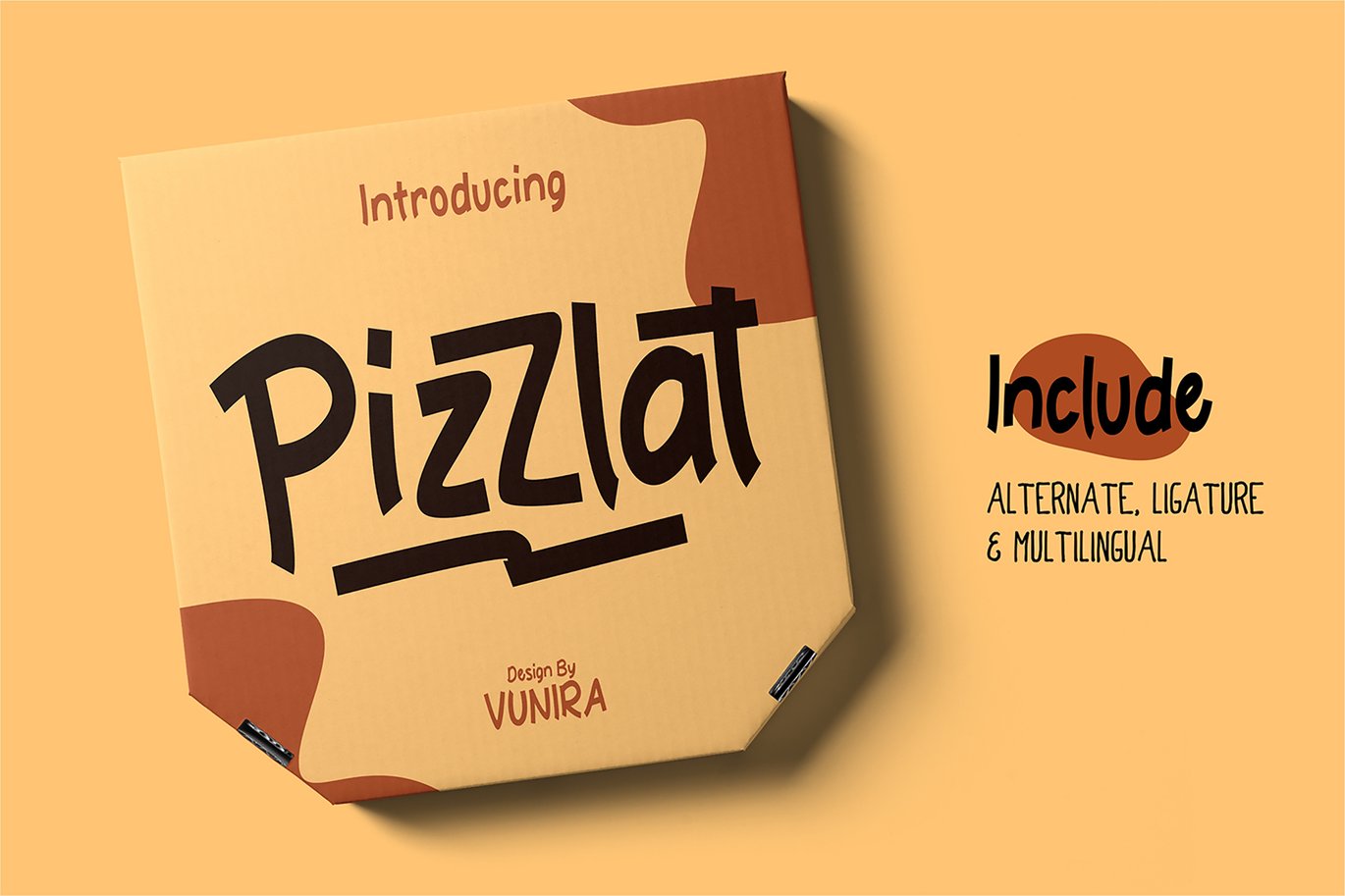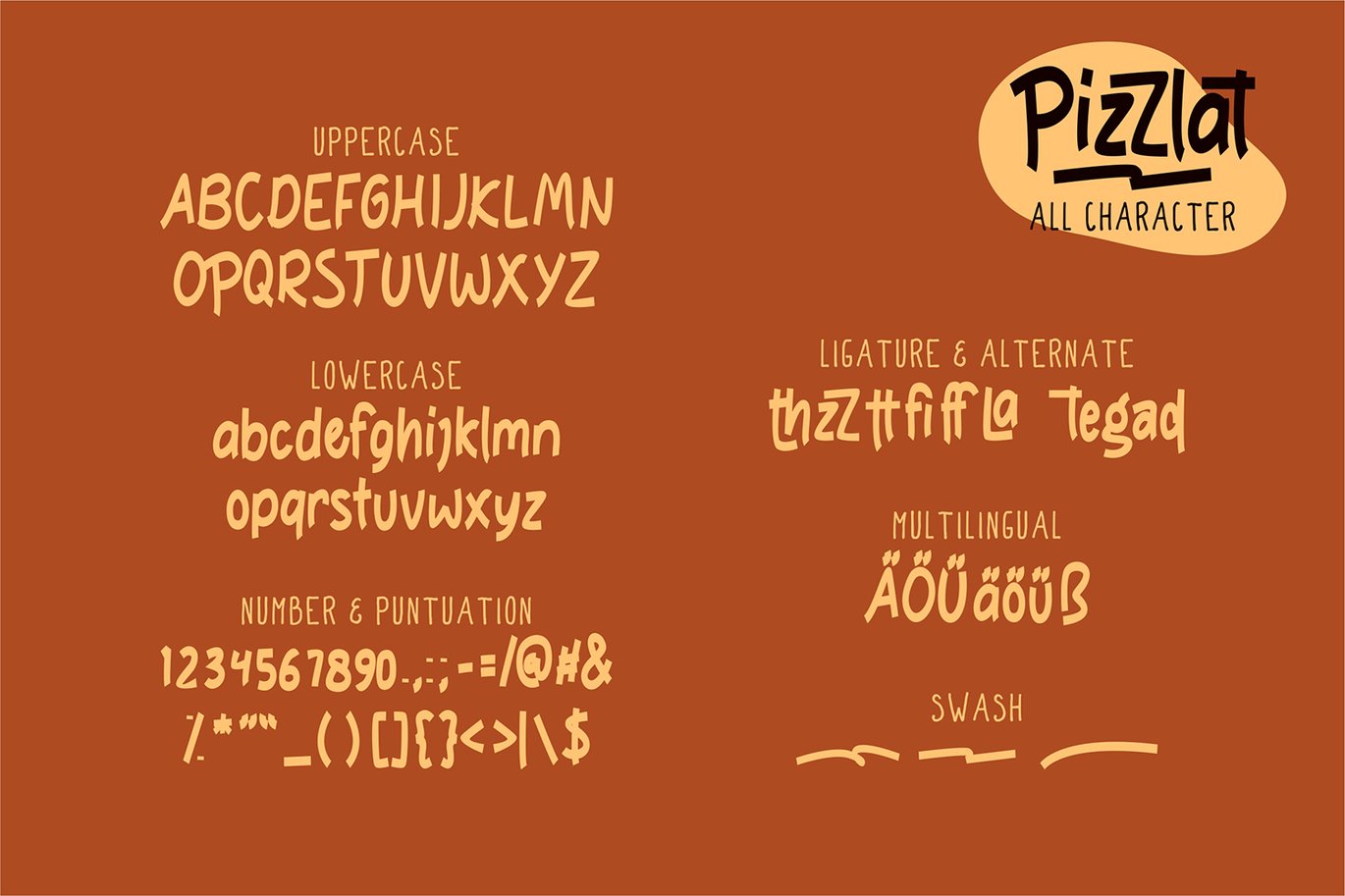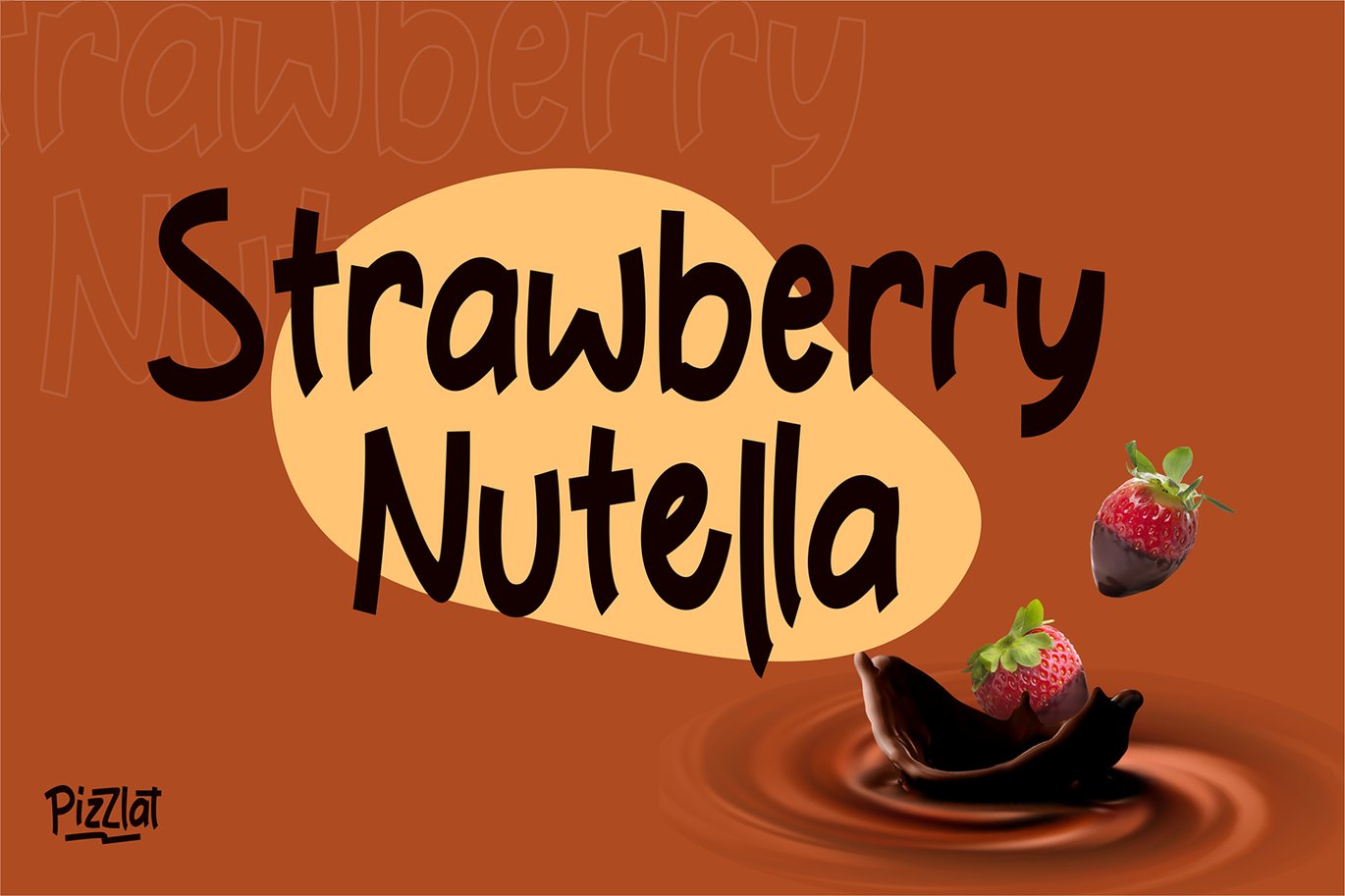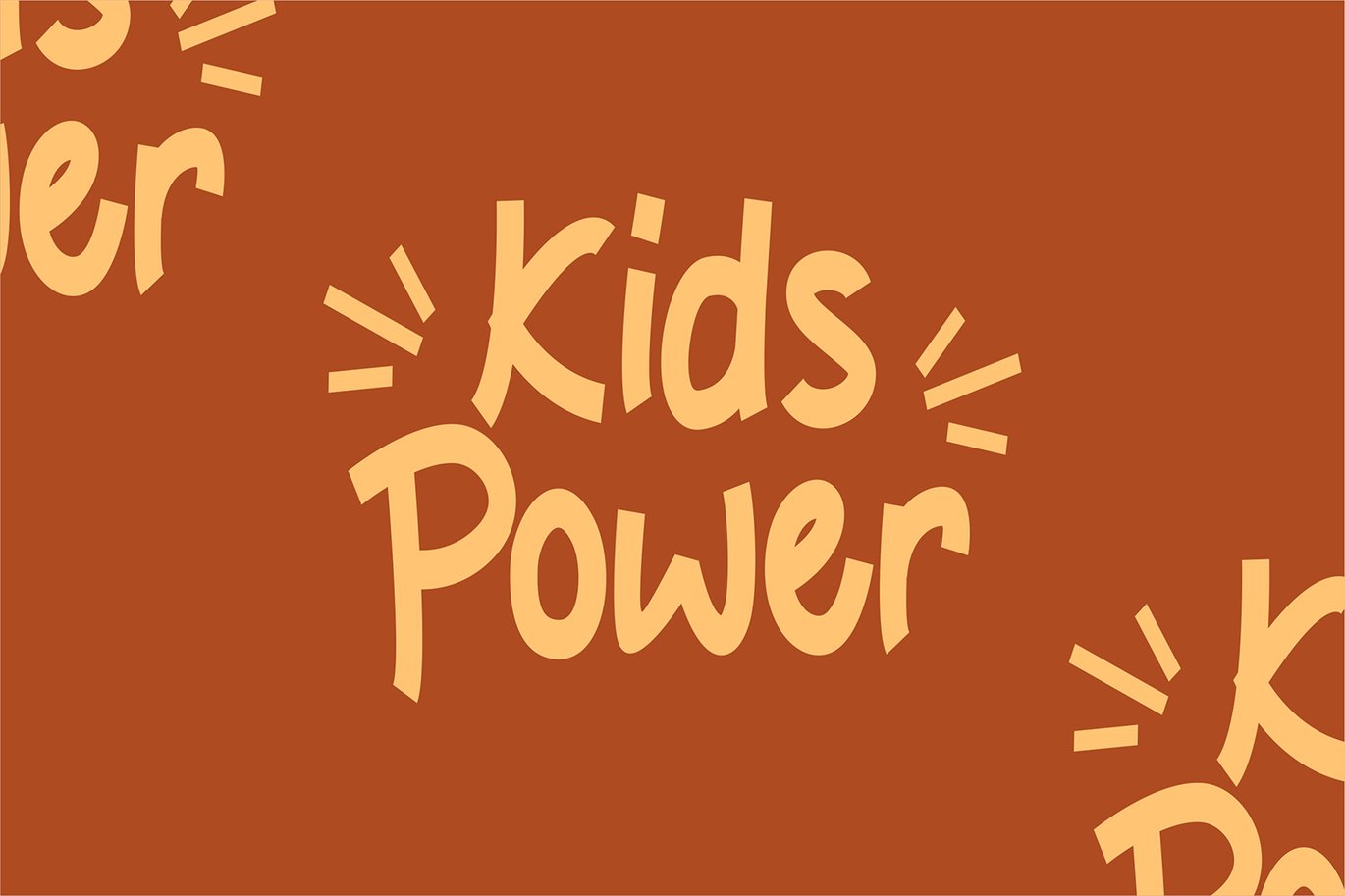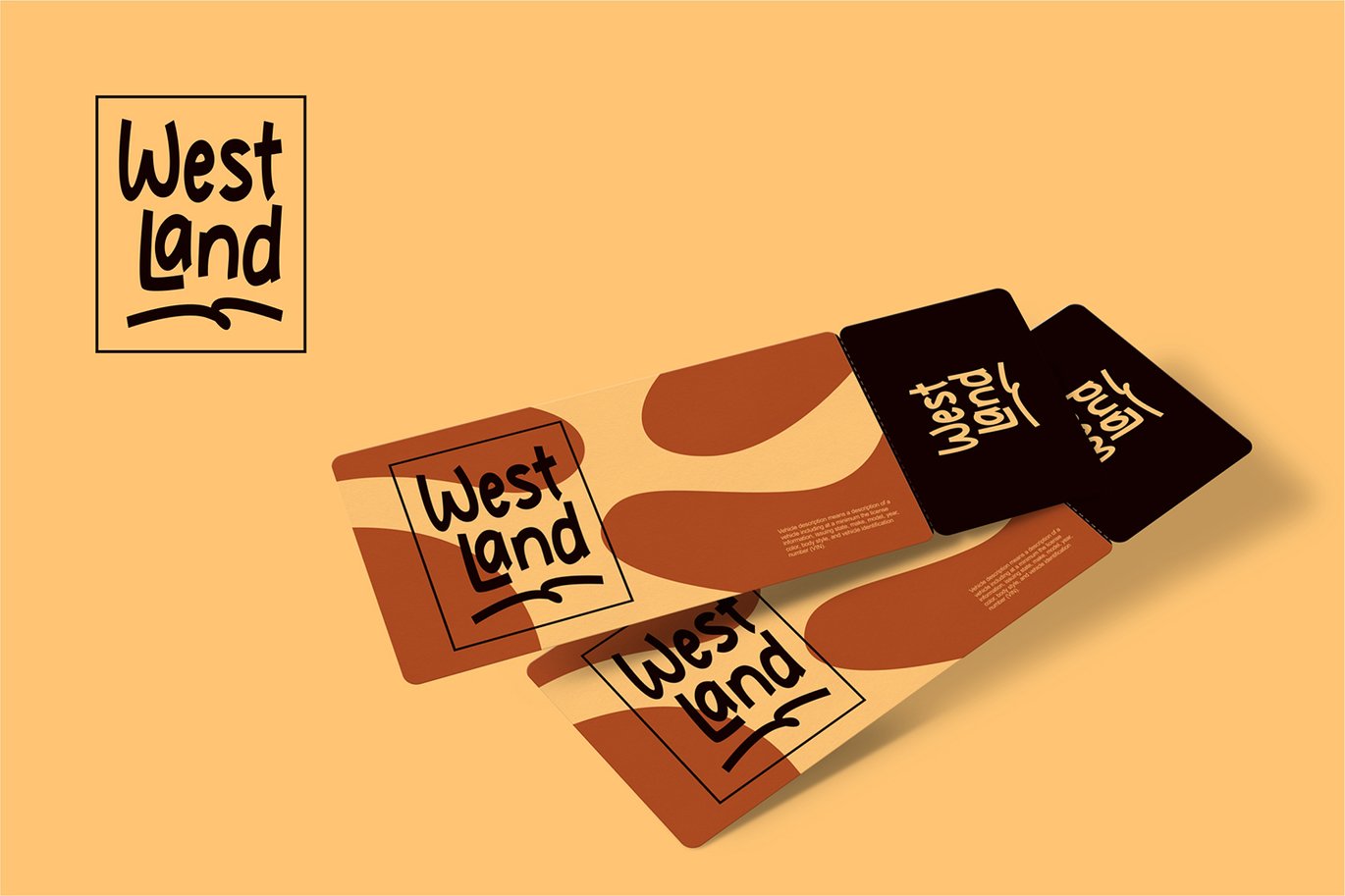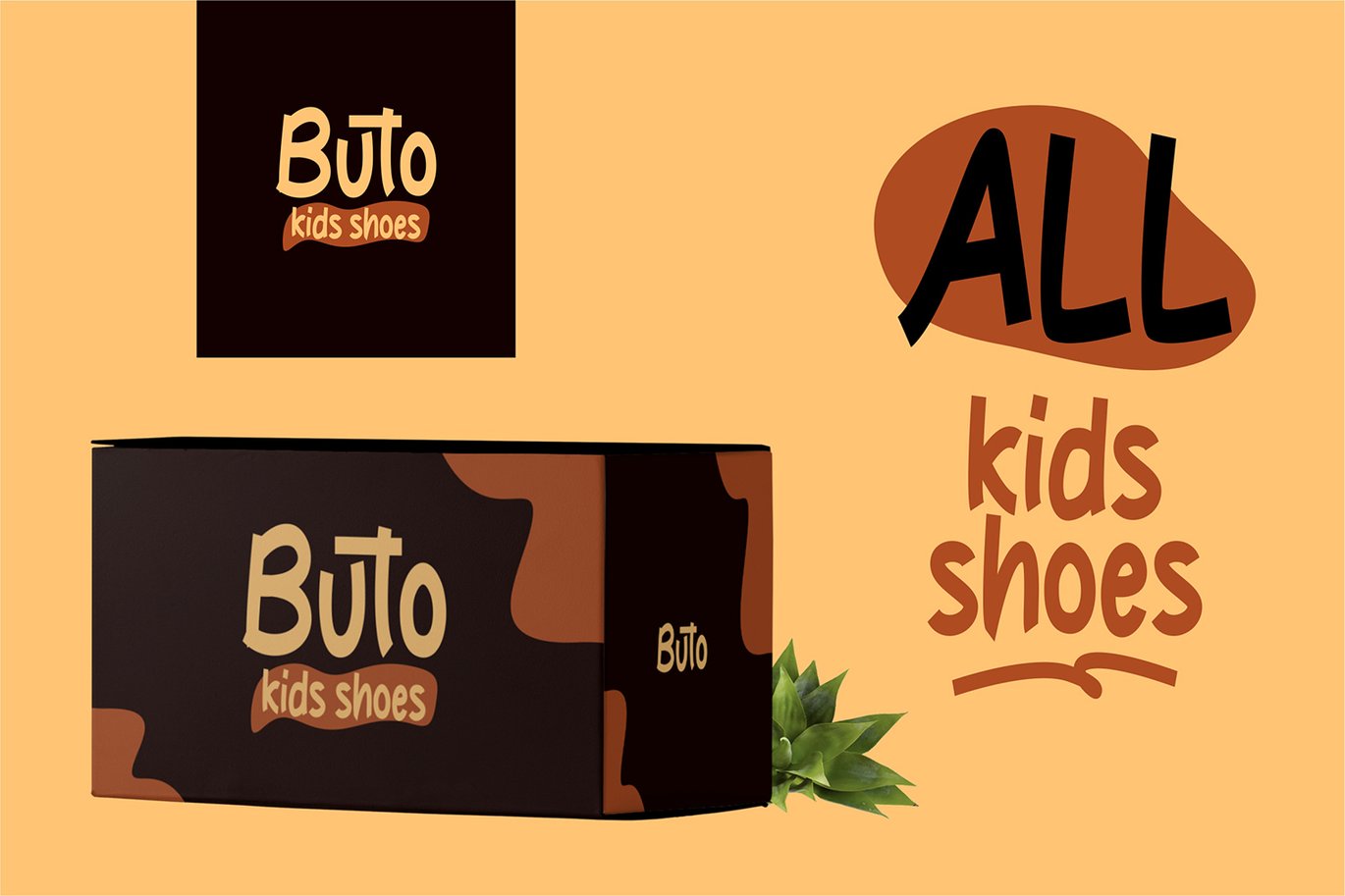
Pizzlat | Fancy Font
Pizzlat | Fancy Font with a calligraphy style, So beautiful on invitation like greeting cards, branding materials, business cards, quotes, posters, and more!